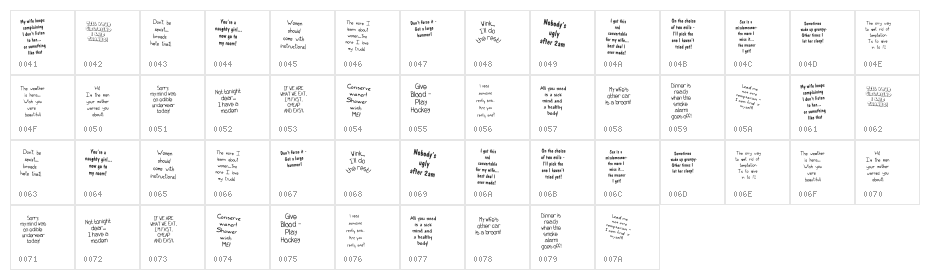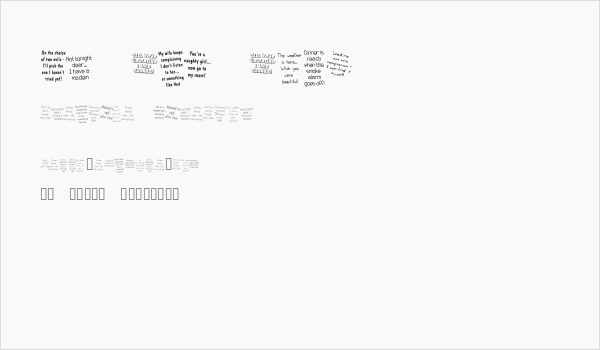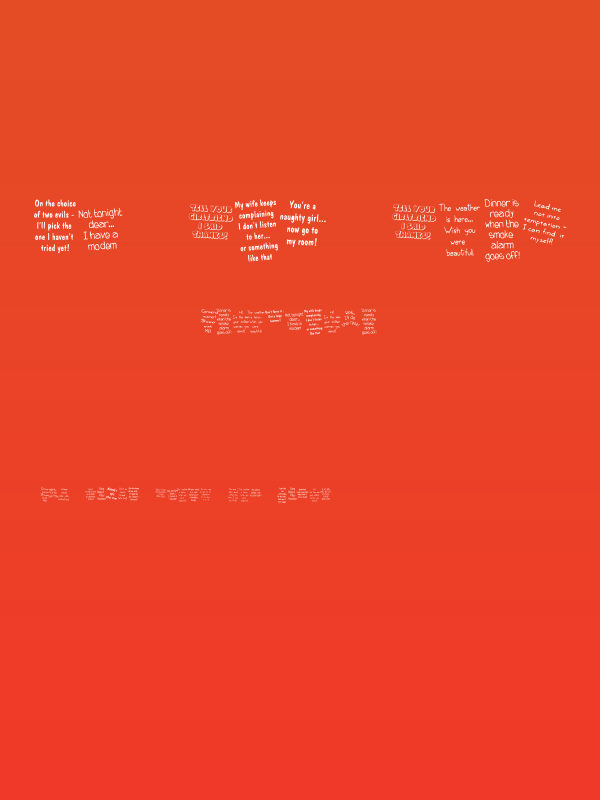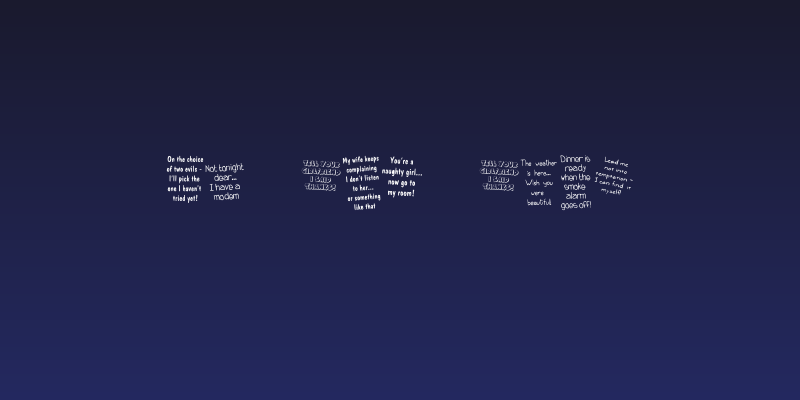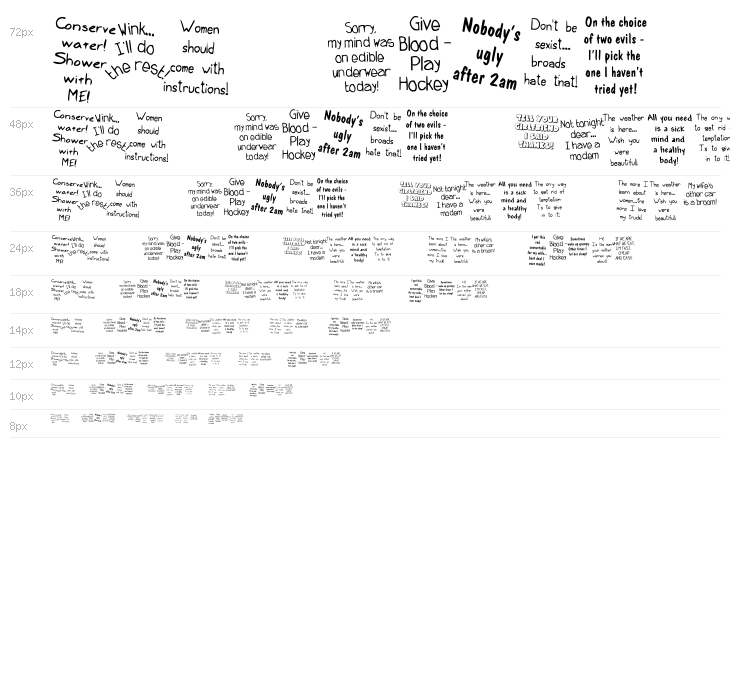
KR Bad Boyz Font
KR Bad Boyz Description
This font features a playful and quirky handwritten style, characterized by its uneven and whimsical letterforms. Each character exhibits a casual, freeform appearance, with varying stroke thickness that adds to its informal charm. The letters are slightly slanted, giving the text a dynamic and lively feel. The font's irregular baseline and inconsistent character sizes contribute to its unique and spontaneous look, making it ideal for projects that require a touch of personality and creativity. The overall style is reminiscent of doodles or casual notes, perfect for capturing a fun and lighthearted tone.